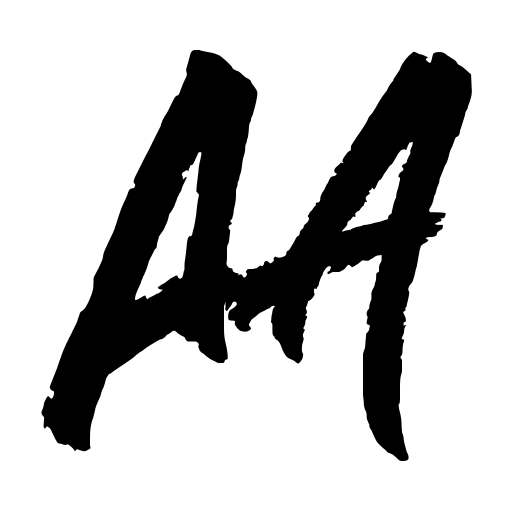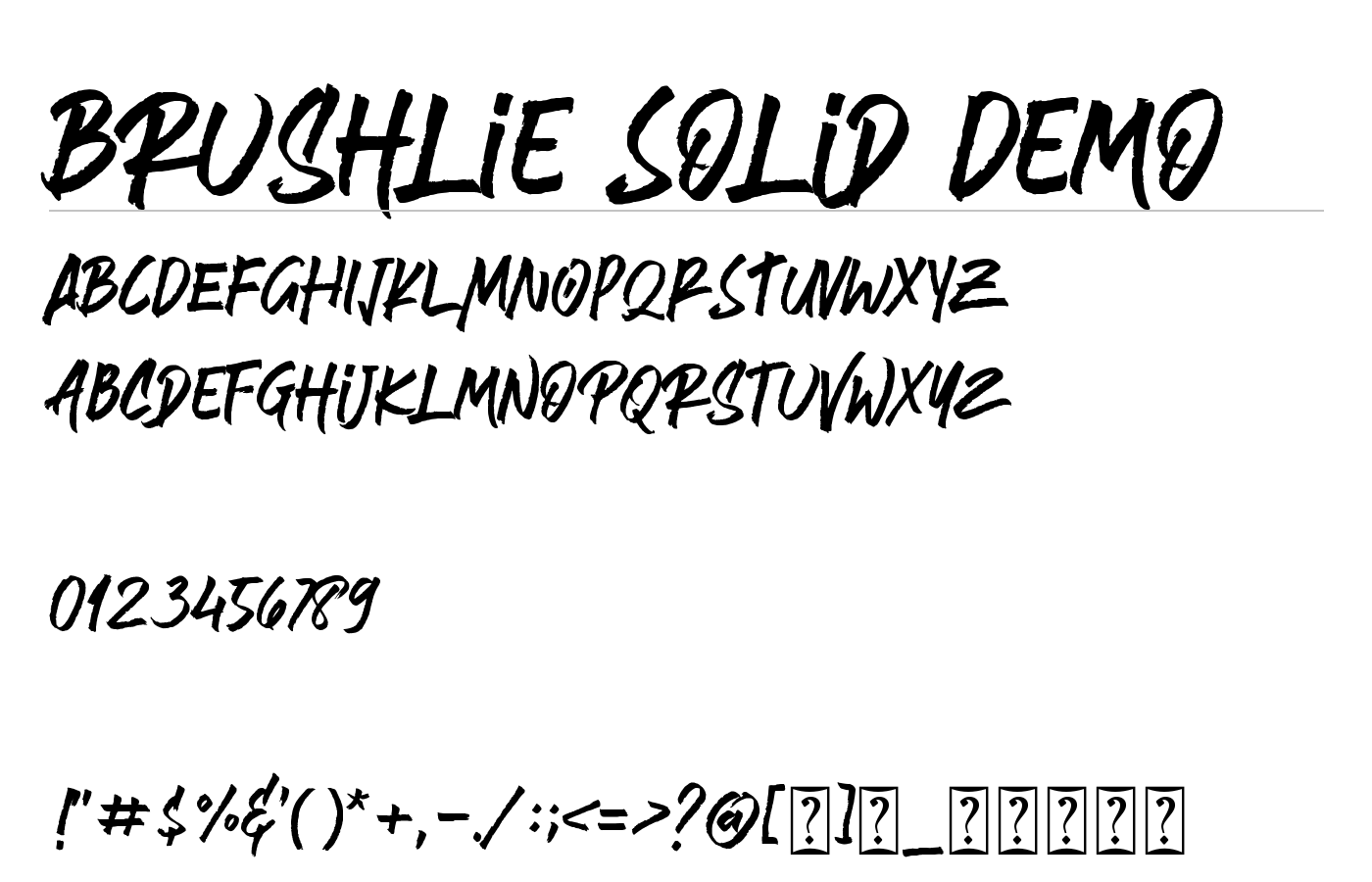
Brushlie Solid Demo is a bold, energetic brush script font that captures a hand-painted, casual vibe with its thick, dynamic strokes and organic texture. Its uppercase letters convey a lively and artistic personality, making it ideal for branding, posters, and creative projects that want to feel fresh, expressive, and informal. This font works best in headlines or display use where its striking, handwritten style adds a bold, spirited touch.
Brushlie Solid Demo Font
About Brushlie Solid Demo Font
| Font family | Brushlie Solid Demo Font |
| Designer | Abo Daniel 2019 |